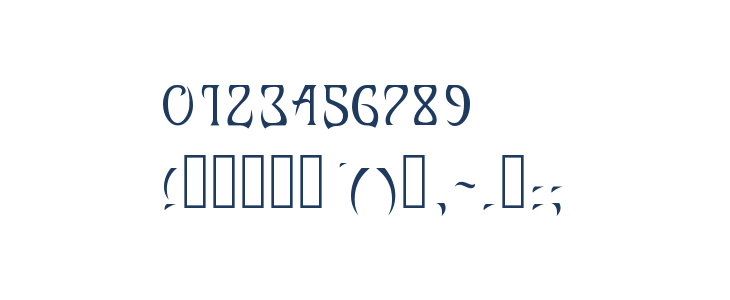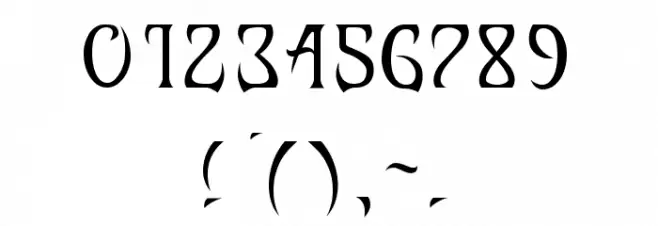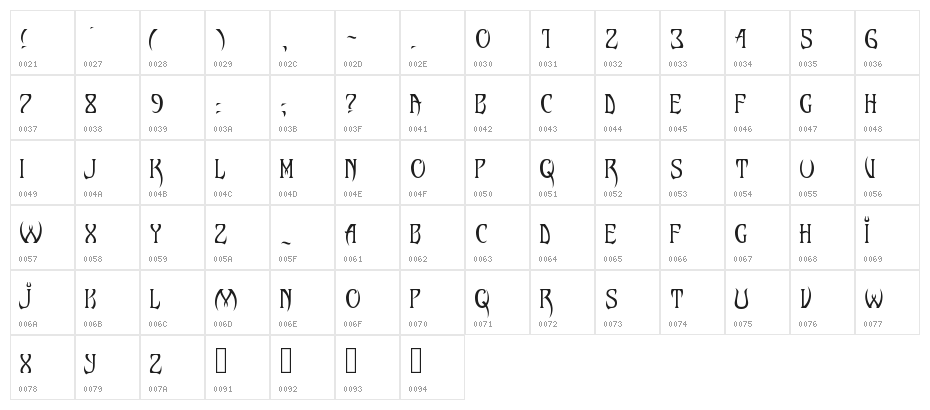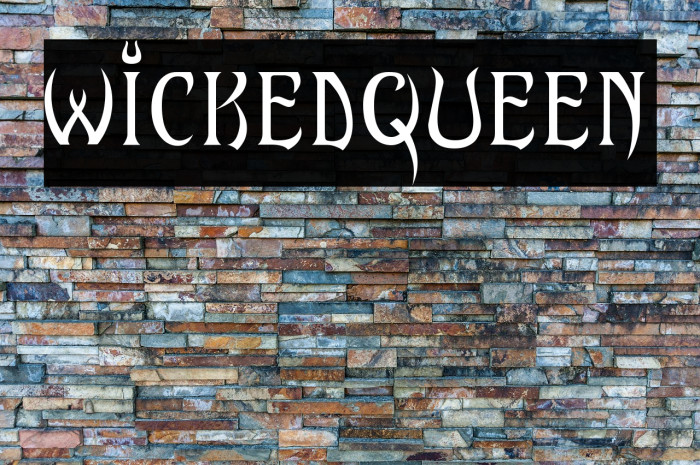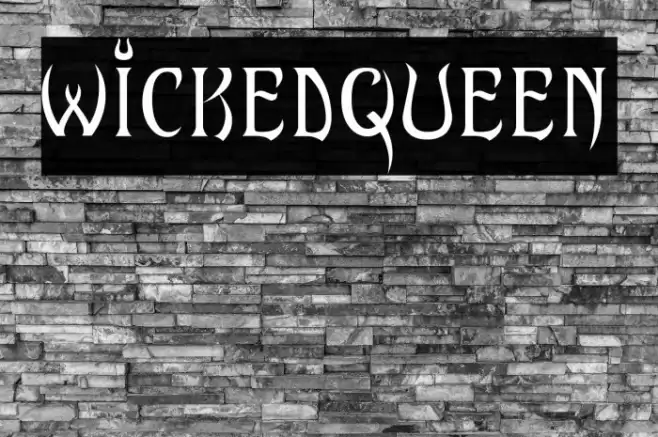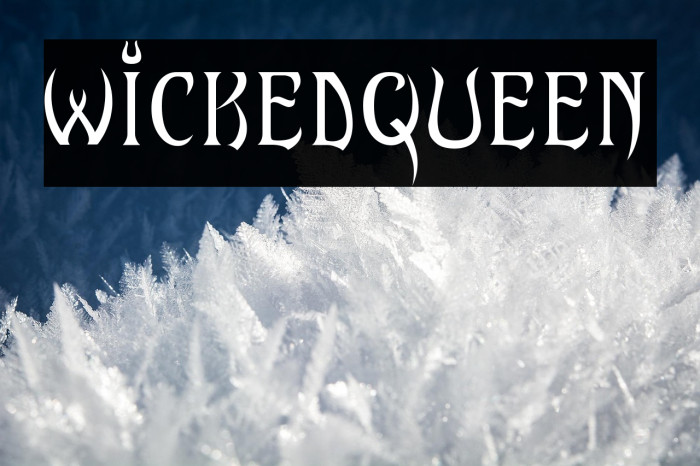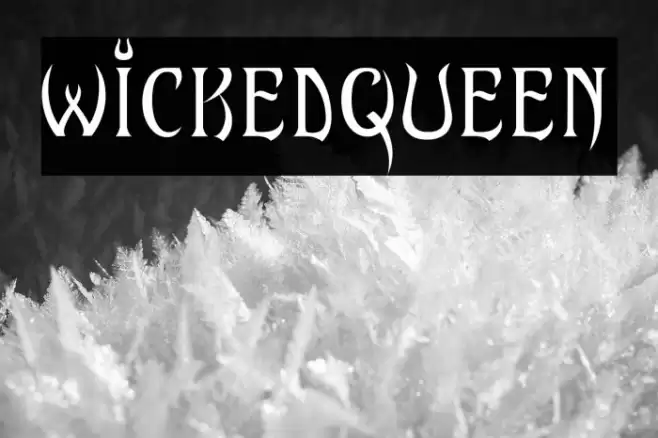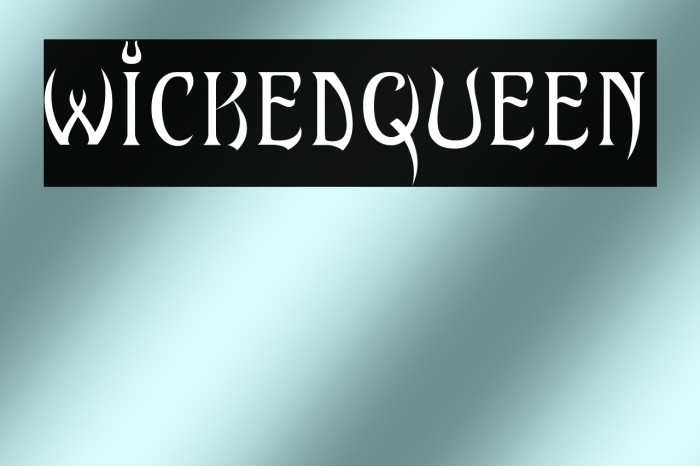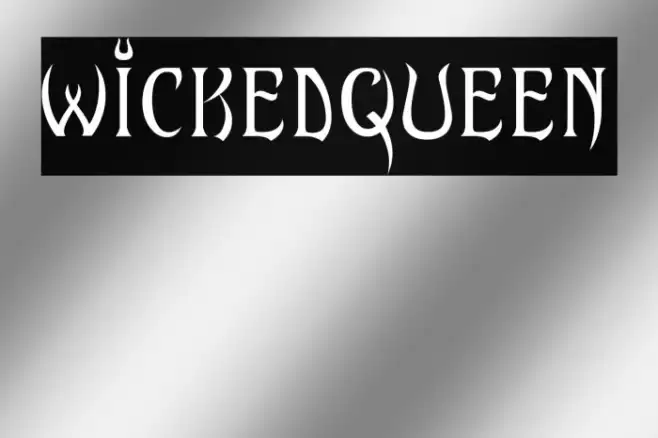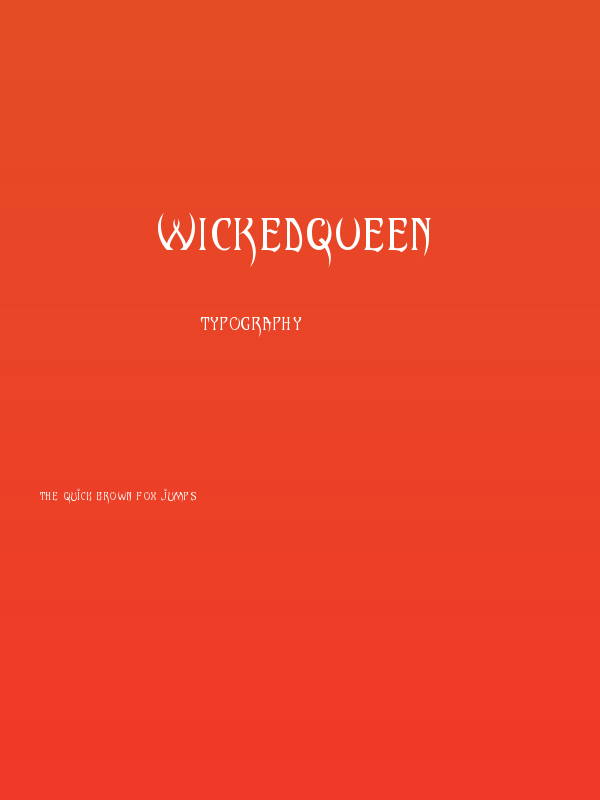
wickedqueen Font
wickedqueen Description
This font features a distinctive and dramatic style, characterized by sharp, angular serifs and a gothic flair. The uppercase letters exhibit a unique blend of traditional serif elements with a modern twist, incorporating pointed edges and elongated strokes. The lowercase letters maintain this aesthetic, offering a cohesive look across the alphabet. Numbers and special characters follow the same design principles, ensuring consistency throughout. The overall appearance is bold and eye-catching, making it suitable for projects that require a touch of elegance and mystery.
| Overall Style | Gothic, Decorative |
| Proposed Projects | Ideal for fantasy book covers, gothic-themed posters, or branding for alternative fashion lines. |